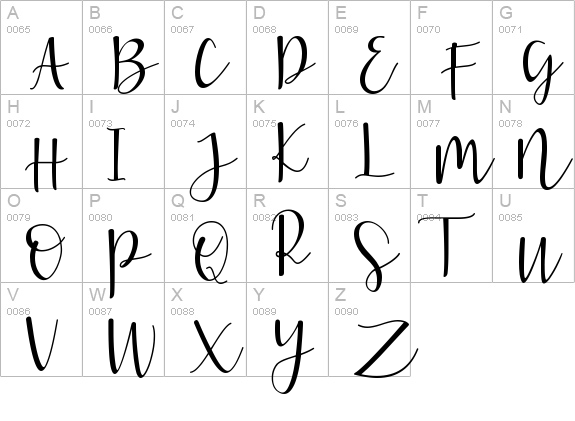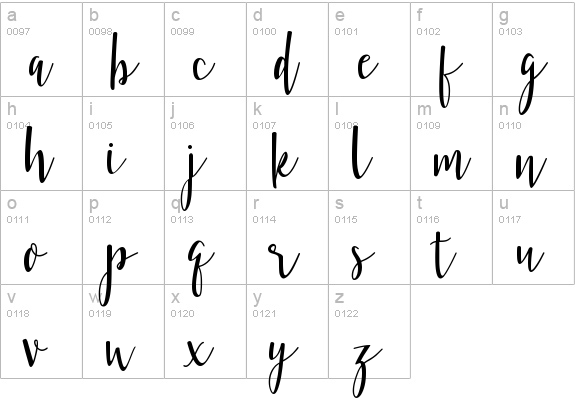
Violette Font Details
Violette is a free for personal use font in the Script > Calligraphy category, designed by Yusron Billah. It has been downloaded 1,138 times and is available for Windows, Mac and Linux.
Violette font is a stunning and elegant typeface that exudes sophistication and charm. With its graceful curves and stylish letterforms, Violette is perfect for adding a touch of class to any design project. Whether you're creating invitations, branding materials, or social media graphics, Violette will elevate your work to the next level.